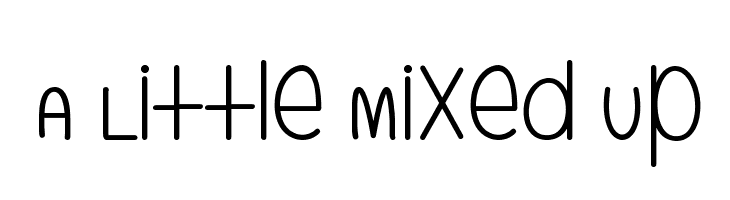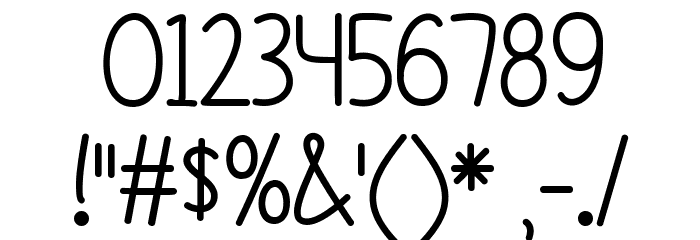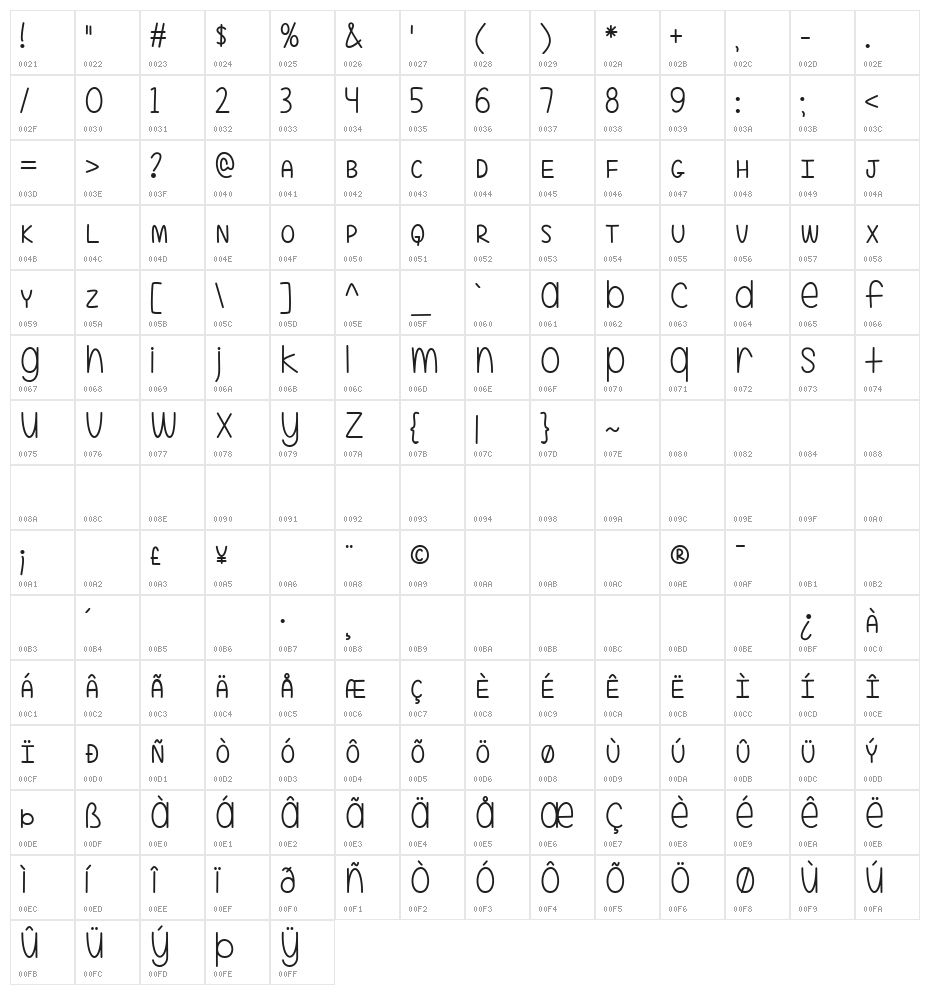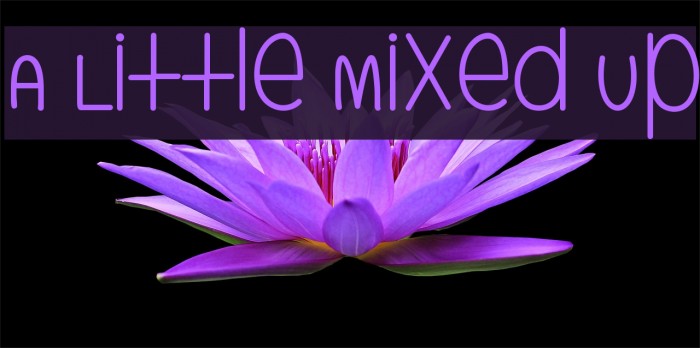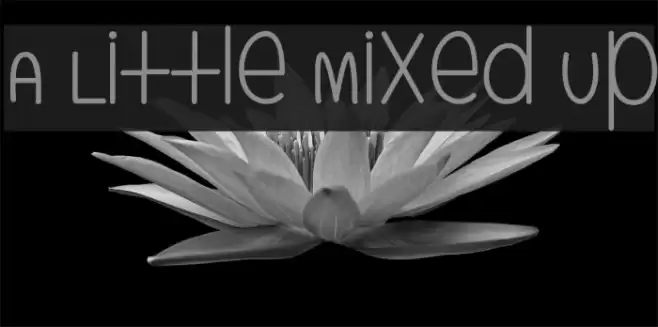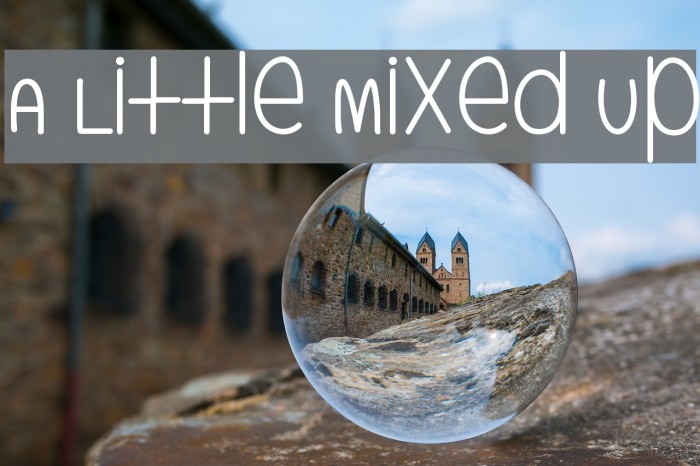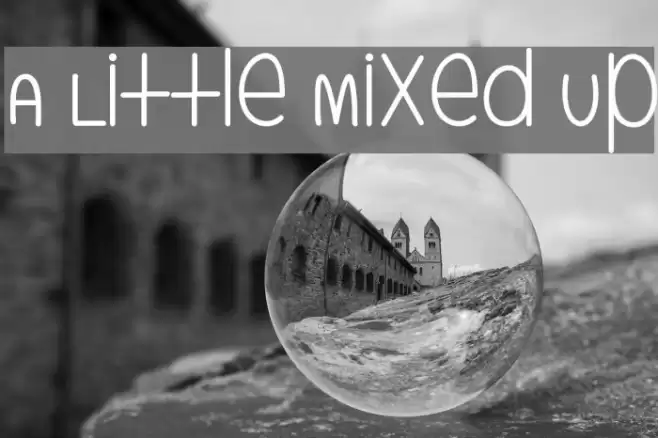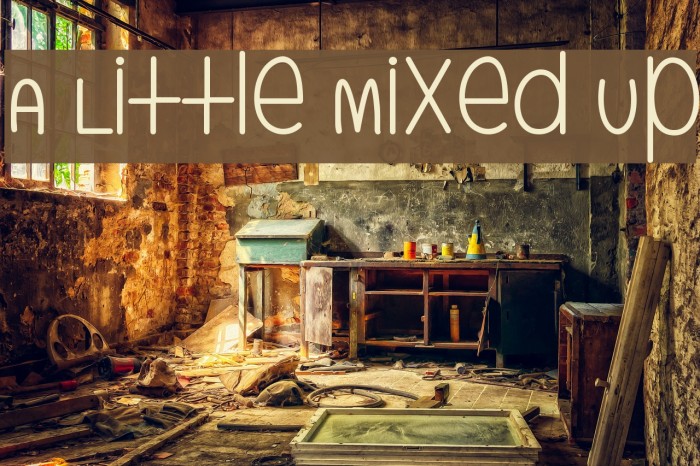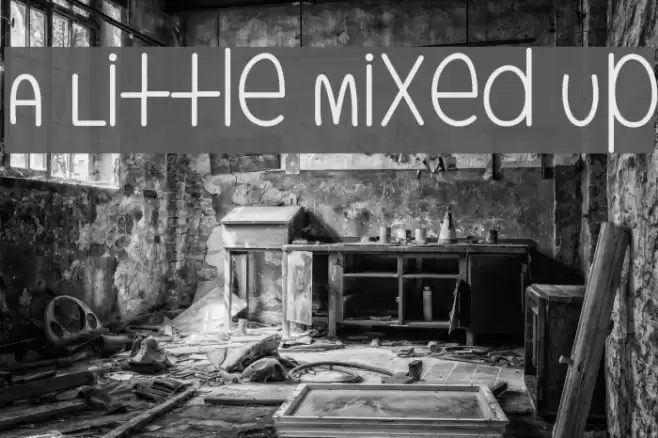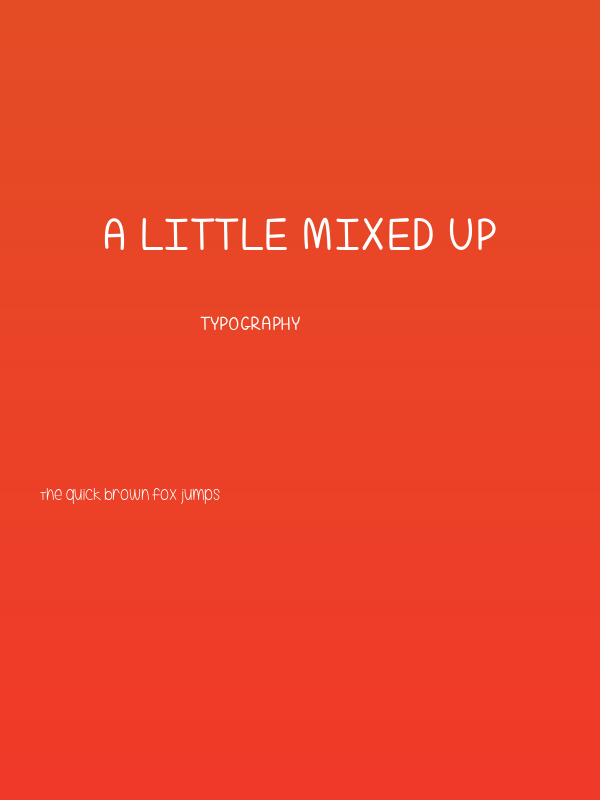
A Little Mixed Up Font
| Gesamtstil | Playful |
| Anwendungsfall | Headlines, Logos, Invitations |
| Vorgeschlagene Projekte | Ideal for children's books, playful branding, greeting cards, and casual invitations. |